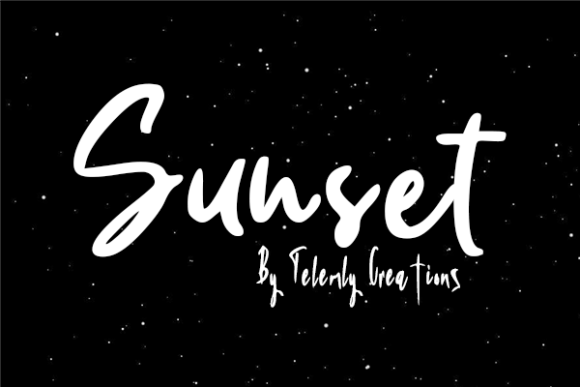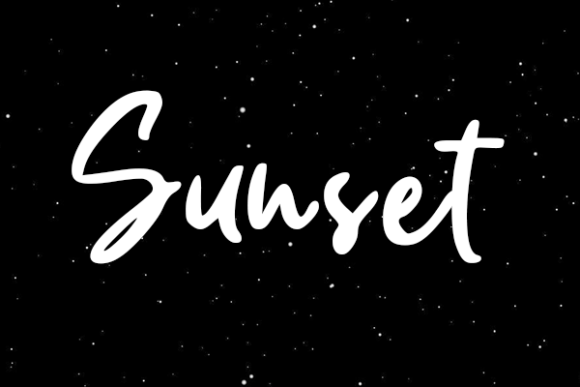
Sunset Font
About Sunset Font
Sunset is an excellent choice for crafting eye-catching logos, branding, and quotes. This font is designed with every letter possessing a unique and beautiful touch, adding a distinctive quality that brings your design to life. Whether you’re working on brand identity, creating a memorable logo, or developing impactful quotes, Sunset contributes a captivating and aesthetic appeal to your creative projects.
The individuality of each letter in Sunset enhances the overall visual impact, making it a standout option for designs that require attention. The font’s versatility allows it to excel in various applications, from logos and branding materials to quotes that demand a touch of elegance.
In summary, Sunset is more than just a font; it’s a design element that introduces a unique and beautiful touch to your creative work. Whether utilized in logos, branding, or quotes, this font elevates the visual impact of your designs, bringing them to life with sophistication and distinctiveness.